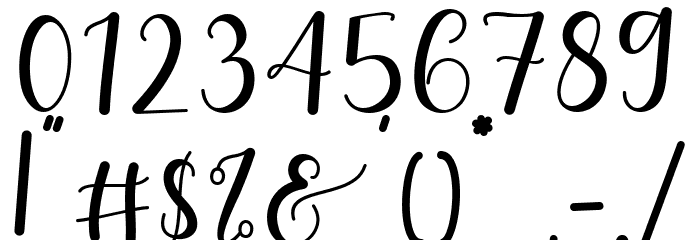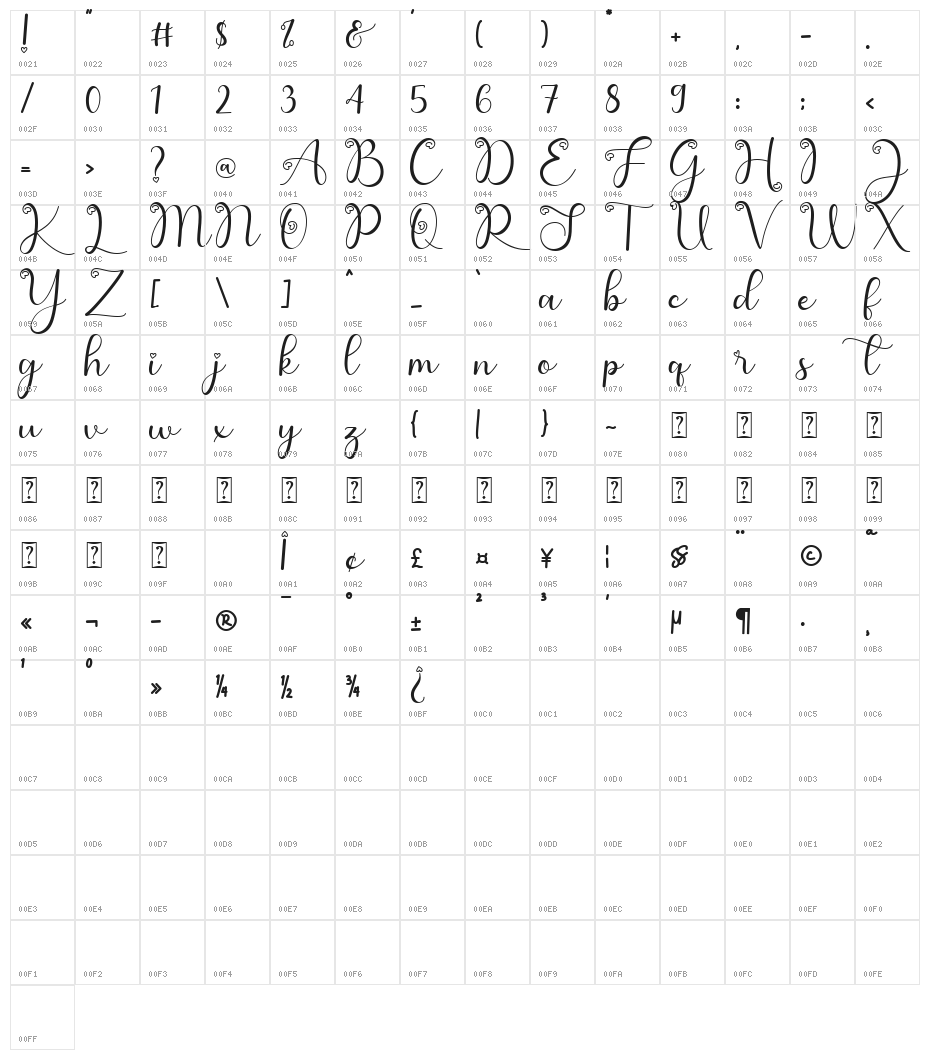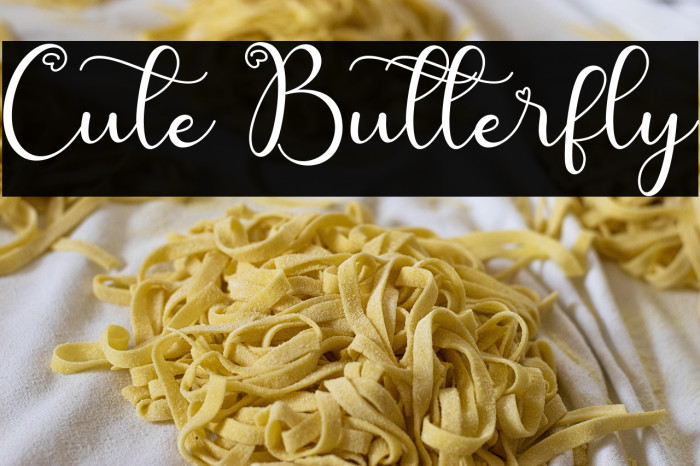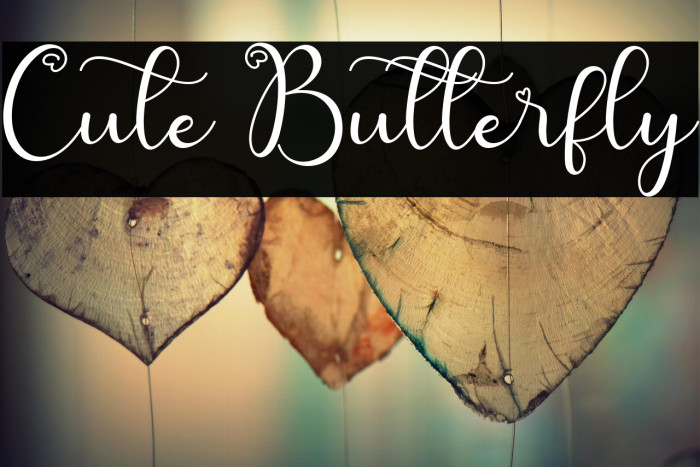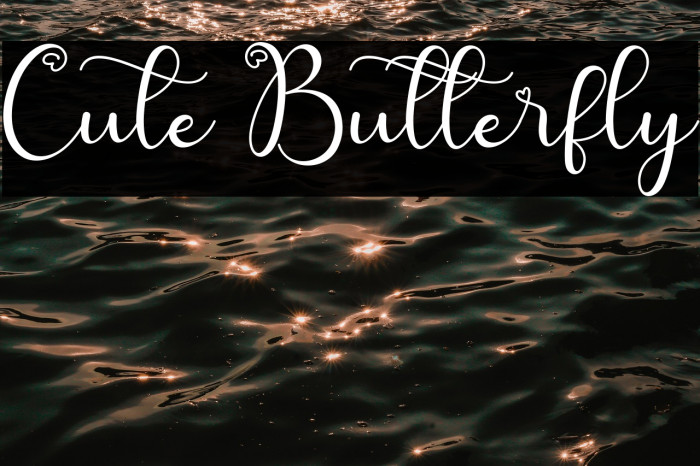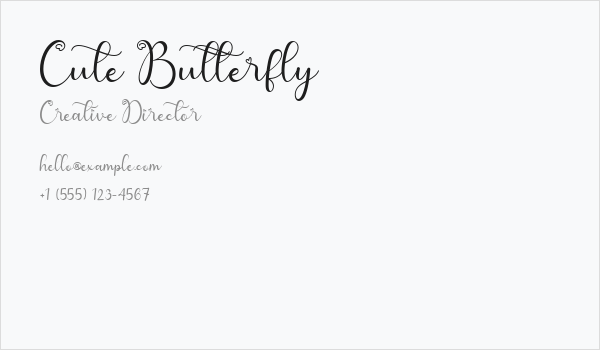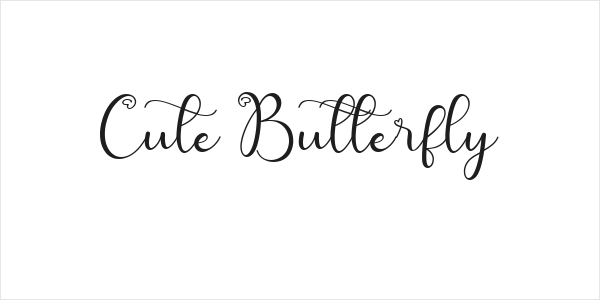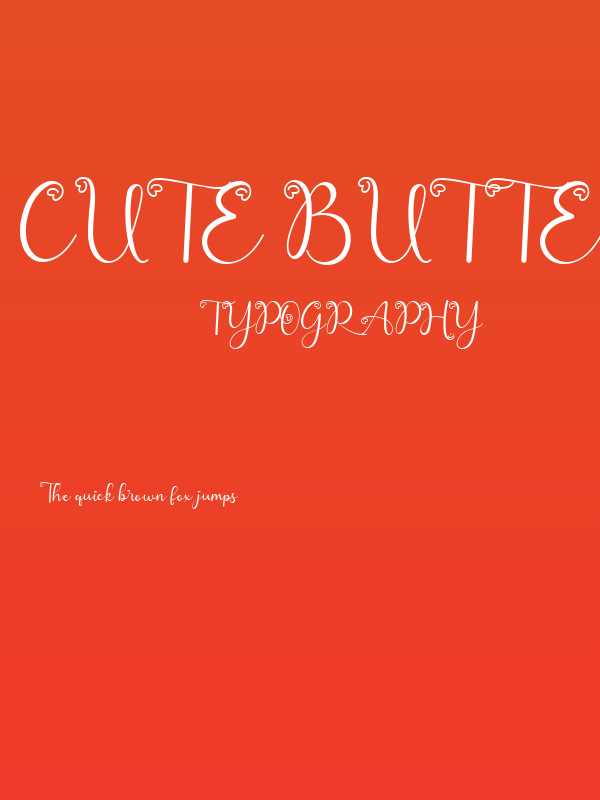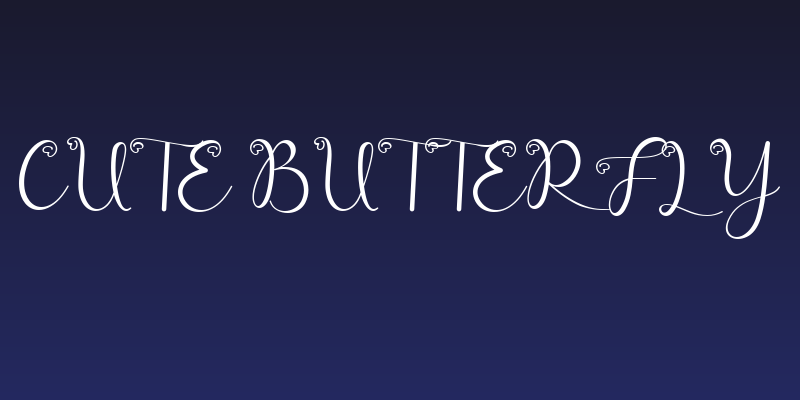
Cute Butterfly Font
Cute Butterfly Description
This font features a whimsical and playful script style with elegant swirls and curls. The uppercase letters are adorned with decorative loops, giving them a charming and unique appearance. The lowercase letters maintain a smooth, flowing quality, with some characters like 'j' and 'i' featuring heart-shaped dots, adding a touch of romance. The numerals are consistent with the script style, maintaining the same playful curves. Special characters are creatively integrated, enhancing the font's overall decorative appeal. This font is perfect for projects that require a personal, handwritten touch.
| Proposed Projects | Ideal for wedding invitations, greeting cards, personal branding, and romantic-themed designs. |